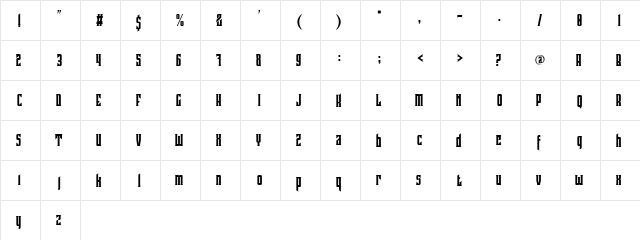
Pindunk Regular
| Foundry | Tamavocks |
| Designer | Tamavocks |
Design Context for Pindunk Typeface
Pindunk is a composed and adaptable typeface that performs quietly and consistently across a wide range of design contexts.